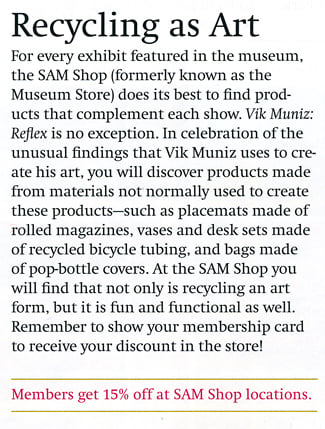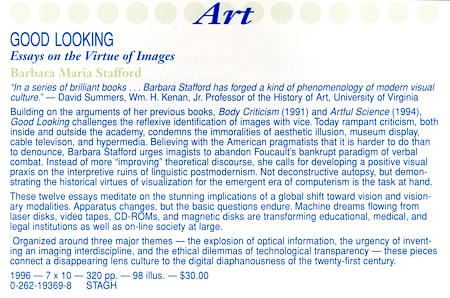
dot-font: The Best Brochure Fonts
Learn how to choose and use the right typeface for a brochure, flyer, or small booklet.
One of the most common typographic tasks is to produce flyers, brochures, and short booklets. It's something that thousands of people, both graphic designers and non-designers, do almost every day, and many of them pick whatever fonts they have on hand. While convenient, that approach may not yield the best results. Here's how to make good choices about typefaces for projects that are a few pages long or less.
Put on a Good Face
Choose a typeface that you're comfortable reading, not one that looks pretty or funny or that catches your eye.
Sturdy, straightforward text faces, such as Century Schoolbook, Century Expanded, and Matthew Carter's much more recent Georgia, will give you readable, workaday text. So will Times Roman in a pinch, but it's not the best text face available; it's just the most common. (And its Bold and Italic versions are only good for very short phrases or titles.) Palatino is also commonly available and quite familiar, though it may look a bit too refined for some kinds of brochure. Most of these typefaces can also be used large, or in a contrasting weight or style, for titles and headlines.
What Not to Do
Avoid very round typefaces with big x-heights. Use a serif face with somewhat narrow character widths (but not a condensed typeface). It should be something classic and straightforward, the kind of typeface we're used to reading without thinking about it, rather than a trendy font that grabs your attention with its quirkiness and flash.
Don't use very light typefaces -- they're generally harder to read. Stay away from such spindly typefaces as Goudy Old Style, New Baskerville, New Caledonia, Monotype Baskerville, and Centaur. These were originally designed for typesetting in metal and printing on a letterpress; they were redrawn for phototypesetting and offset printing, then adapted again for digital typesetting, and in the process they ended up spindly or spiky, losing the even color and readability of strong black ink on white paper that they had once had in metal.
Even Adobe Garamond, which was designed from scratch by Robert Slimbach for digital typesetting (he went back to Claude Garamond's original punches and types to do his research), is a bit too delicate and light for heavy text work. It looks lovely at relatively large sizes in literary books, but it's too refined for most brochures. (Slimbach's more recent Garamond Premier Pro, which is a different typeface based on the same roots, is more robust, though still not what you'd want for industrial use.)
For different reasons, stay away from ITC Garamond Light. This 1970s advertising face is based on the style of Garamond's types (and on later French types that derived from those, also called "Garamond"), but the ITC Garamond family is completely different. Like so many of the early ITC typefaces, ITC Garamond is a multiple-weight family with a very large x-height and a very round body, suitable for the kind of close-fitting advertising headlines and short text popular in the 1970s. It can be very effective when used for that purpose, but not otherwise. And use the Book or Medium weight for text; the Light is simply too light for easy reading.
If you do use a light weight of a type family, give it a little extra space by setting the tracking slightly – slightly! -- loose. Experiment. Set the same paragraph in the same typeface, without changing the size or leading, and change the tracking values; see which setting seems most comfortable to read. If you're using InDesign, try setting the kerning method to Optical rather than Metrics. (A well-crafted font shouldn't need this, but there are plenty of poorly crafted fonts out there. While InDesign's optical kerning isn't perfect, it's surprisingly good.)
If you're forced to use Microsoft Word, which isn't a layout tool no matter how many bells and whistles it has, you can try expanding the character spacing by a fraction of a point (full points would be much too big). Just be warned that Word isn't good at implementing this kind of fine typographic control consistently.
Unless you're a typographic expert, don't use Bodoni or Didot. Just don't. There are many versions of each, some of them elegant and quite beautiful, but using a typeface with such high contrast requires great sensitivity and attention to the finest details of spacing (Figure 1).
Figure 1: A bad example of a Bodoni-like display typeface used for text, set much too tight. In the original, a Members Bulletin from the Brooklyn Museum of Art in 1999, the text is virtually unreadable -- off-putting rather than inviting.
Don't use a typeface with too many quirks. ITC Veljovic, for example, is a lovely, lively typeface, quite wonderful when it's used appropriately; but its calligraphic sprightliness would get in the way of communication in a sober informational brochure. In these types of projects, you don't want the type to draw attention to itself; you want it to get out of the way and let the information come through with complete clarity.